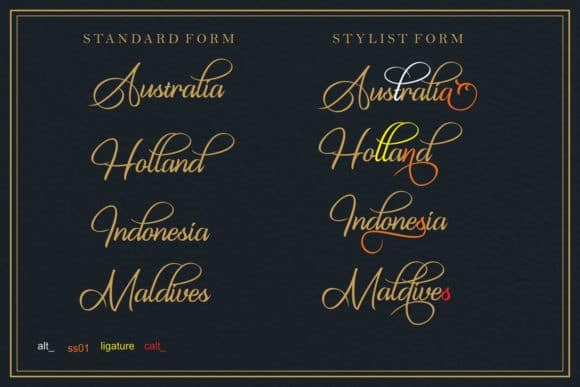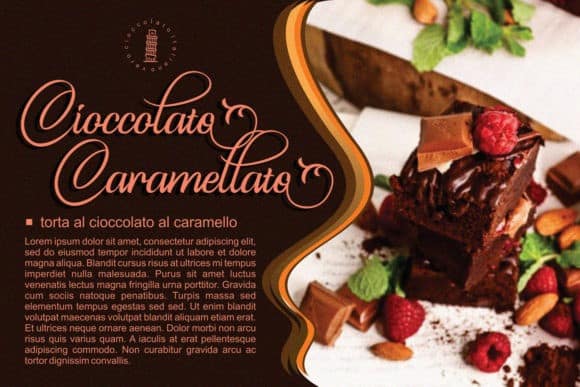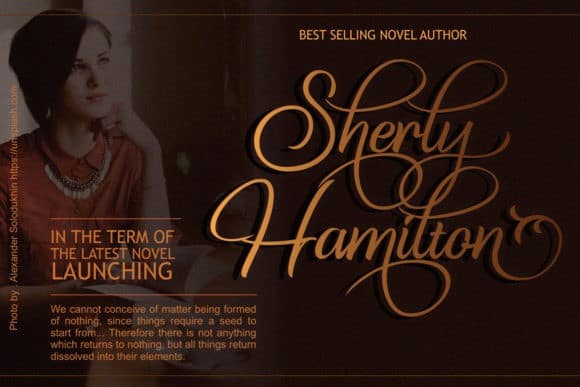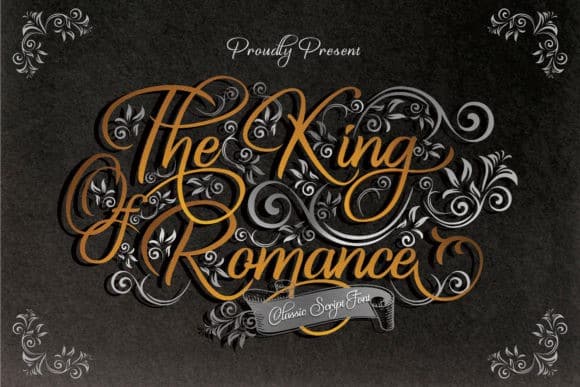
The King Of Romance Script Font
The King Of Romance Script Font with a natural & stylish flow. This typeface is a classic and elegant hand-drawn font manufactured by creativework69 . It is enriched with alternative characters and ligatures that make this font even more beautiful. This collection of scripts is perfect for personal branding. this works well for many applications. Everything from personal branding & wedding invitations to advertising could benefit from this collection of signature fonts.